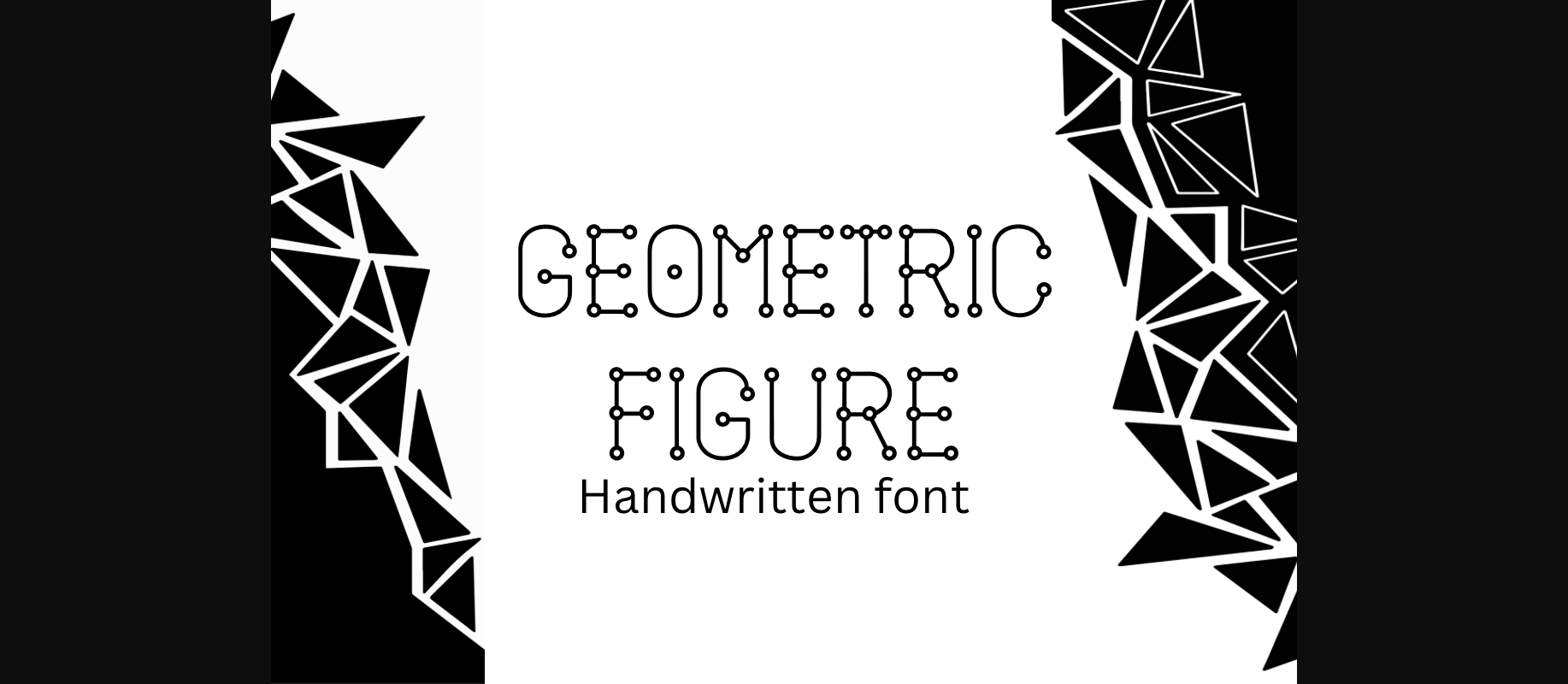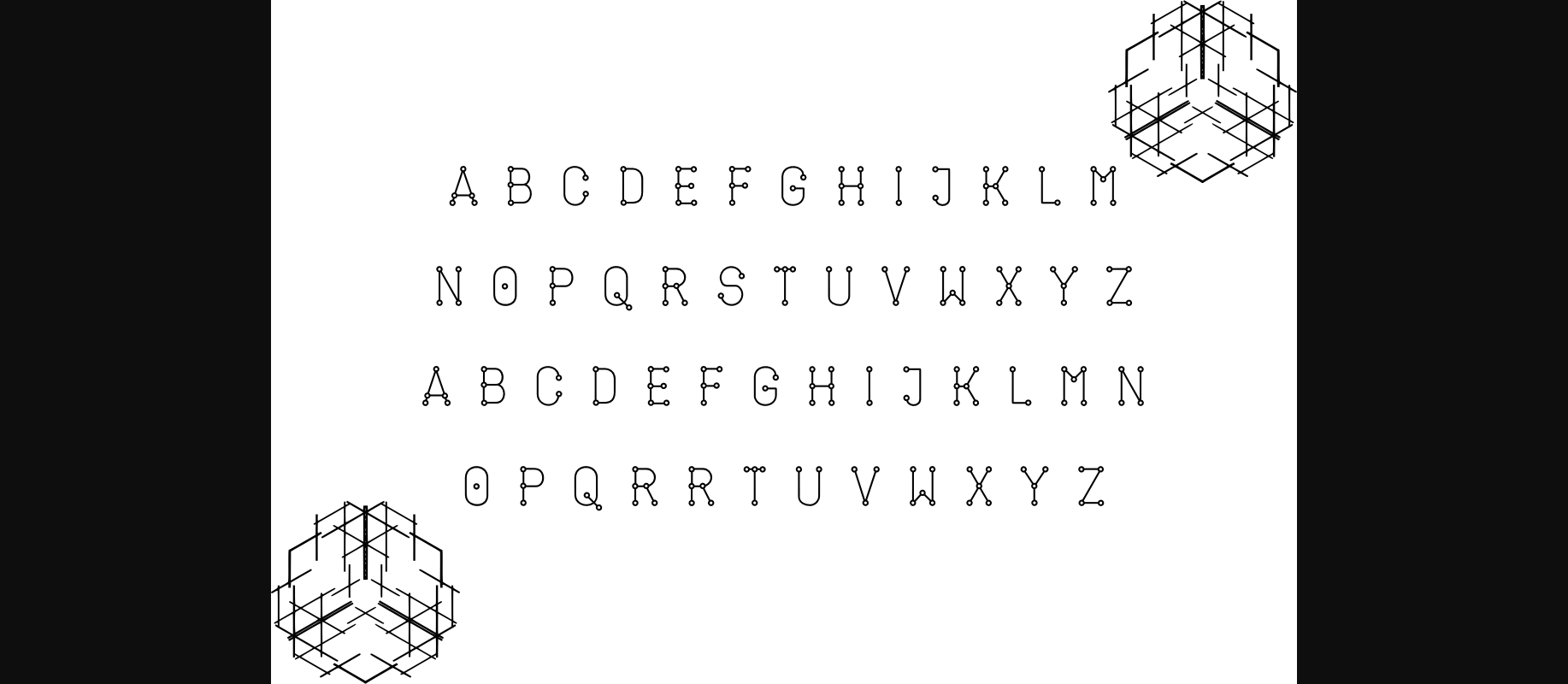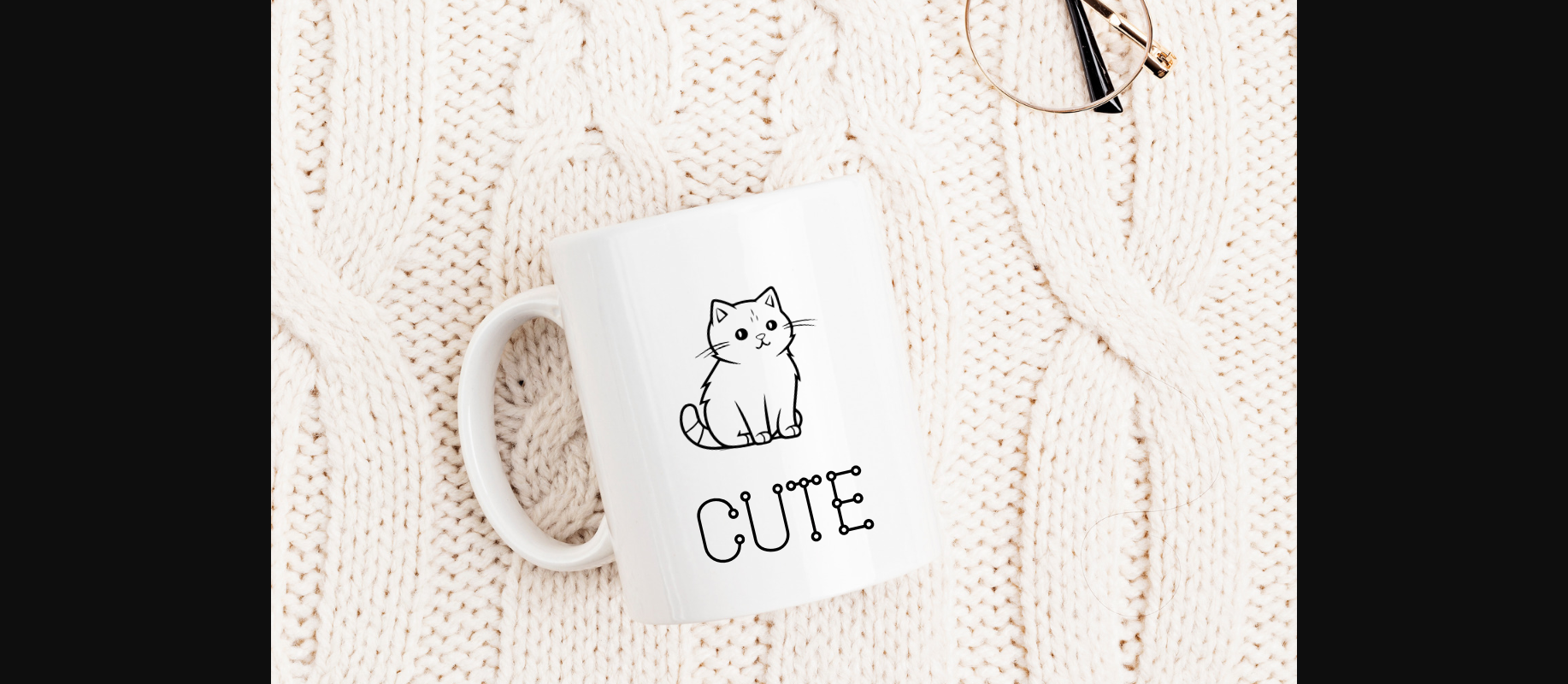
About Geometric Figure Font
Geometric Figure is a captivating display font that features letters intricately connected by small circles, resembling circuits. This unique design adds a futuristic and tech-inspired touch to your text, making it perfect for projects that demand a modern and stylish vibe. Whether you’re creating logos, posters, or digital designs, Geometric Figure effortlessly combines geometric shapes with a sleek aesthetic, ensuring your message stands out with a cutting-edge flair.